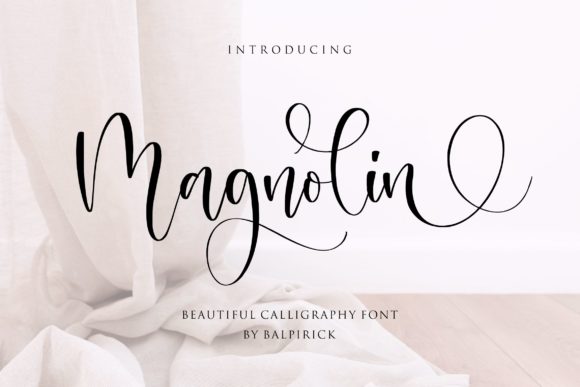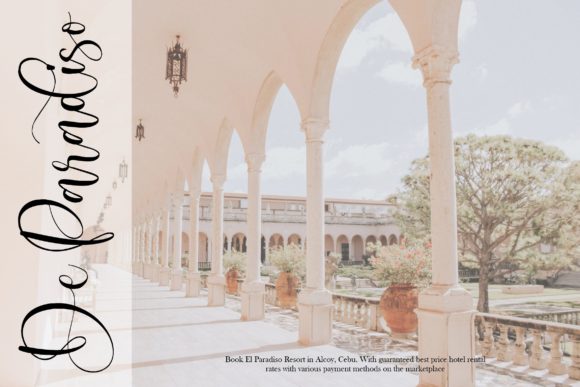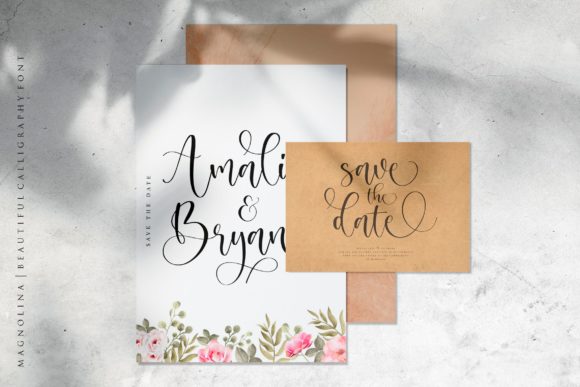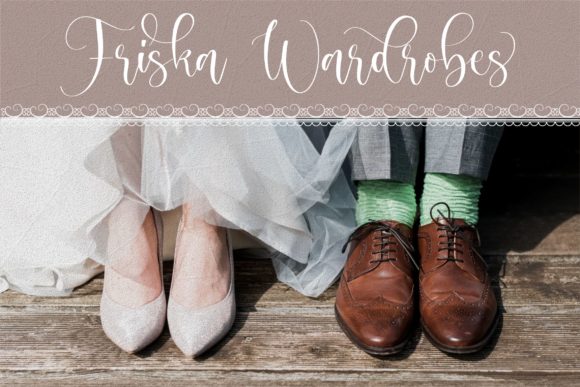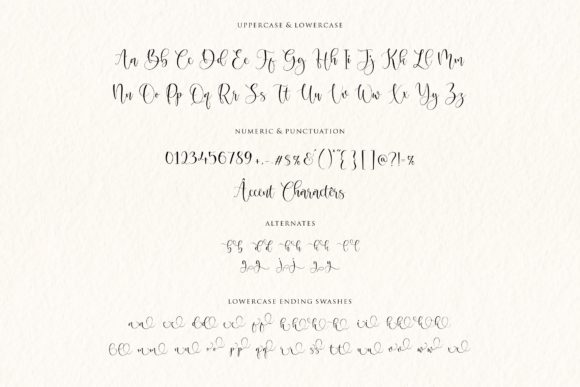
About Magnolin Font
Magnolin is a romantic and sweet calligraphy typeface with characters that dance along the baseline. This font is PUA encoded which means you can access all of the glyphs and swashes with ease! Fall in love with its incredibly versatile style and use it to create spectacular designs!